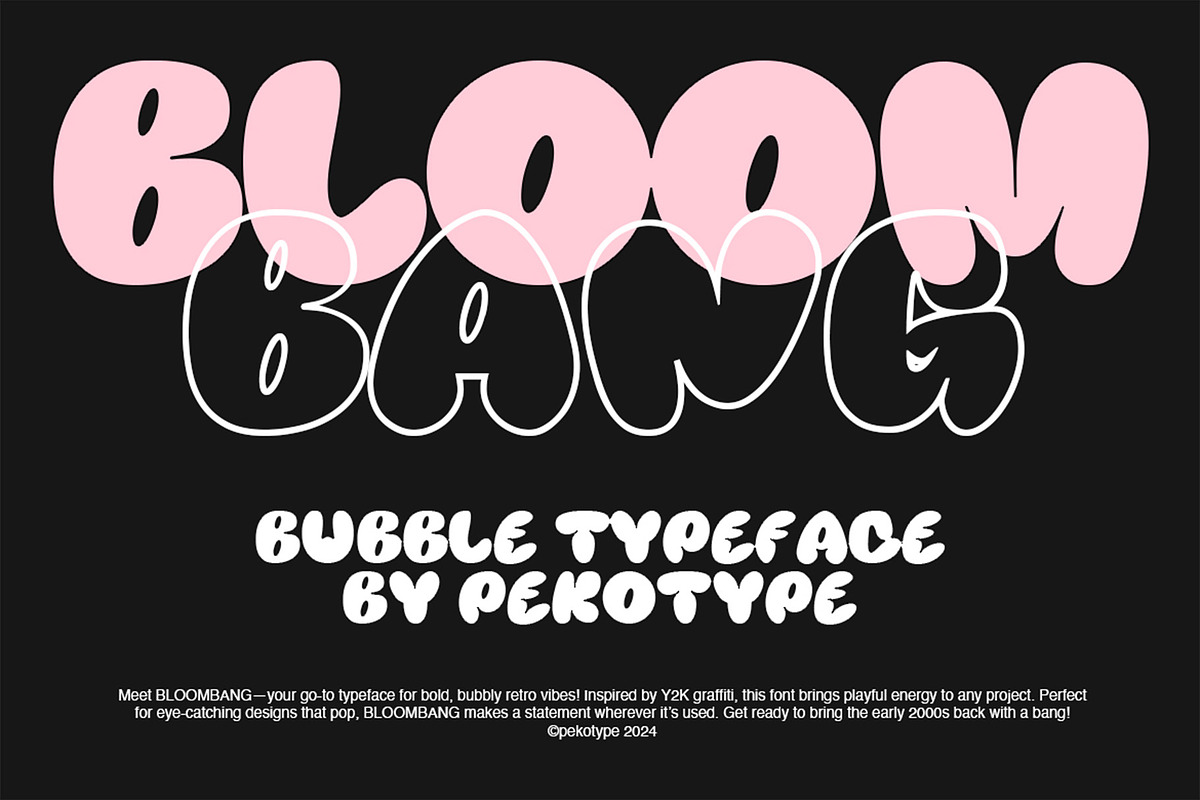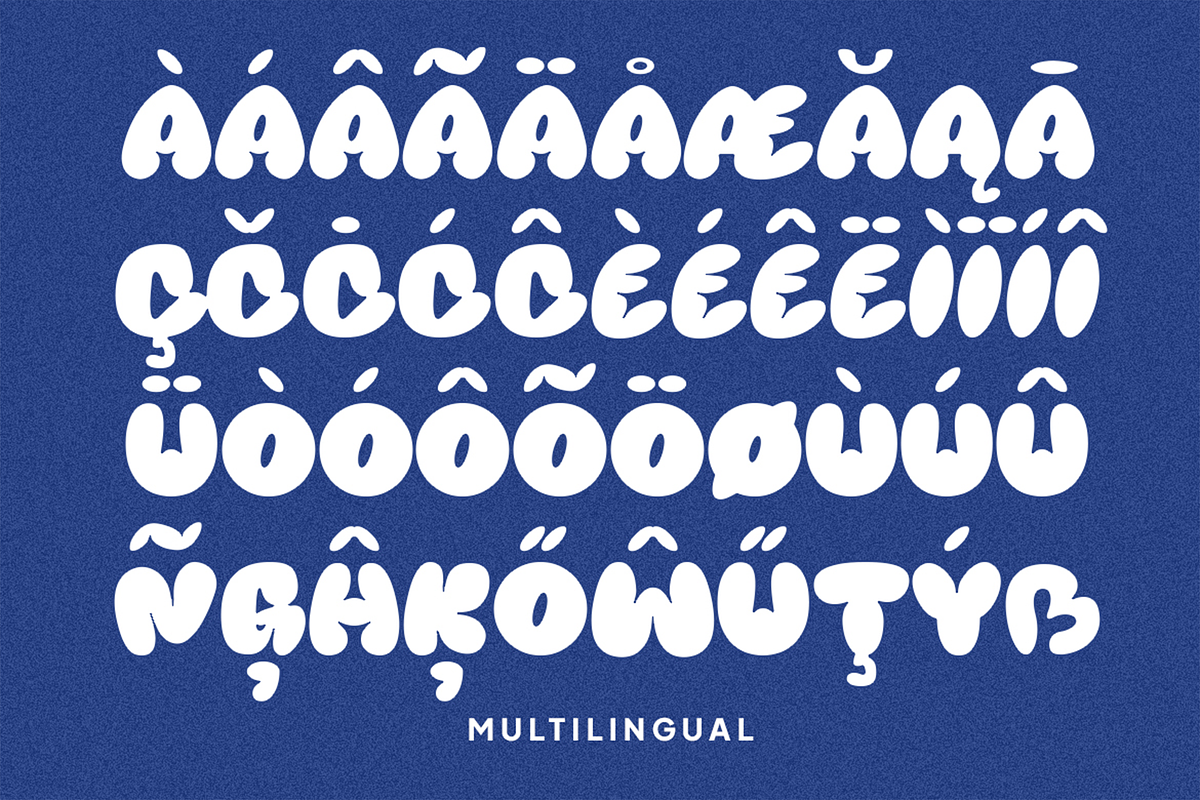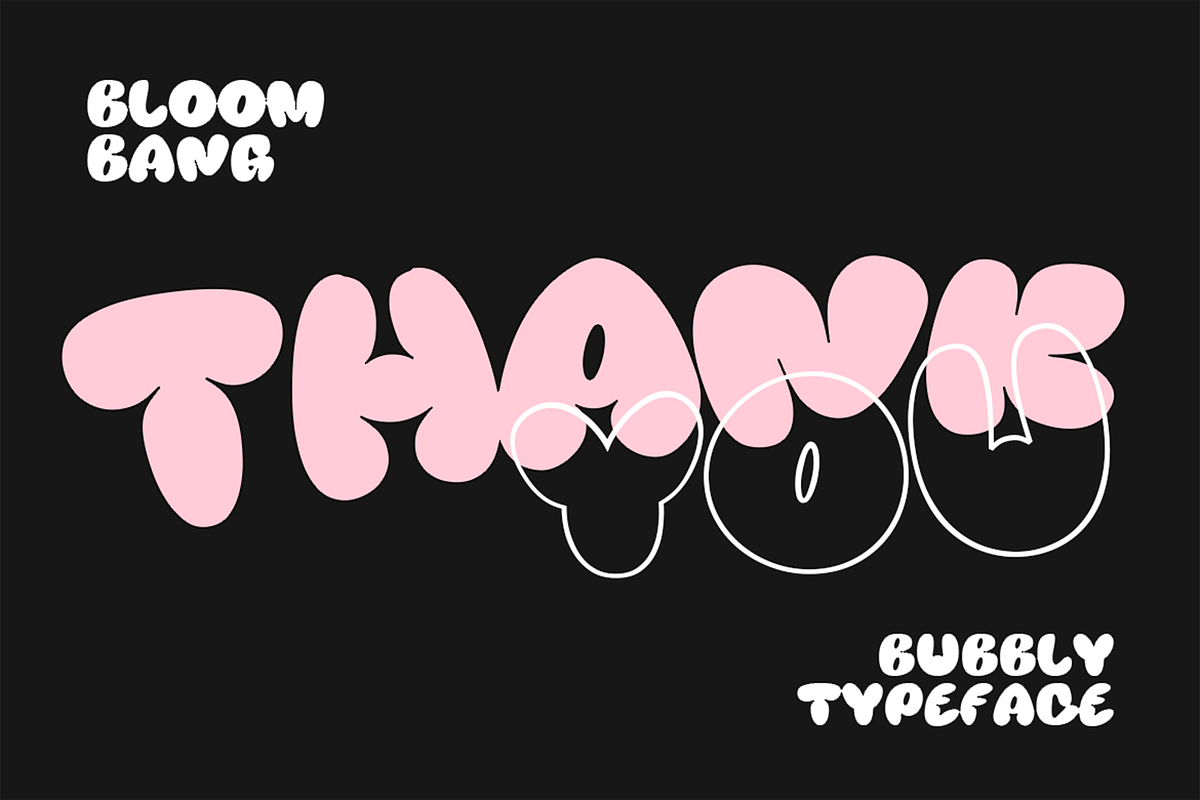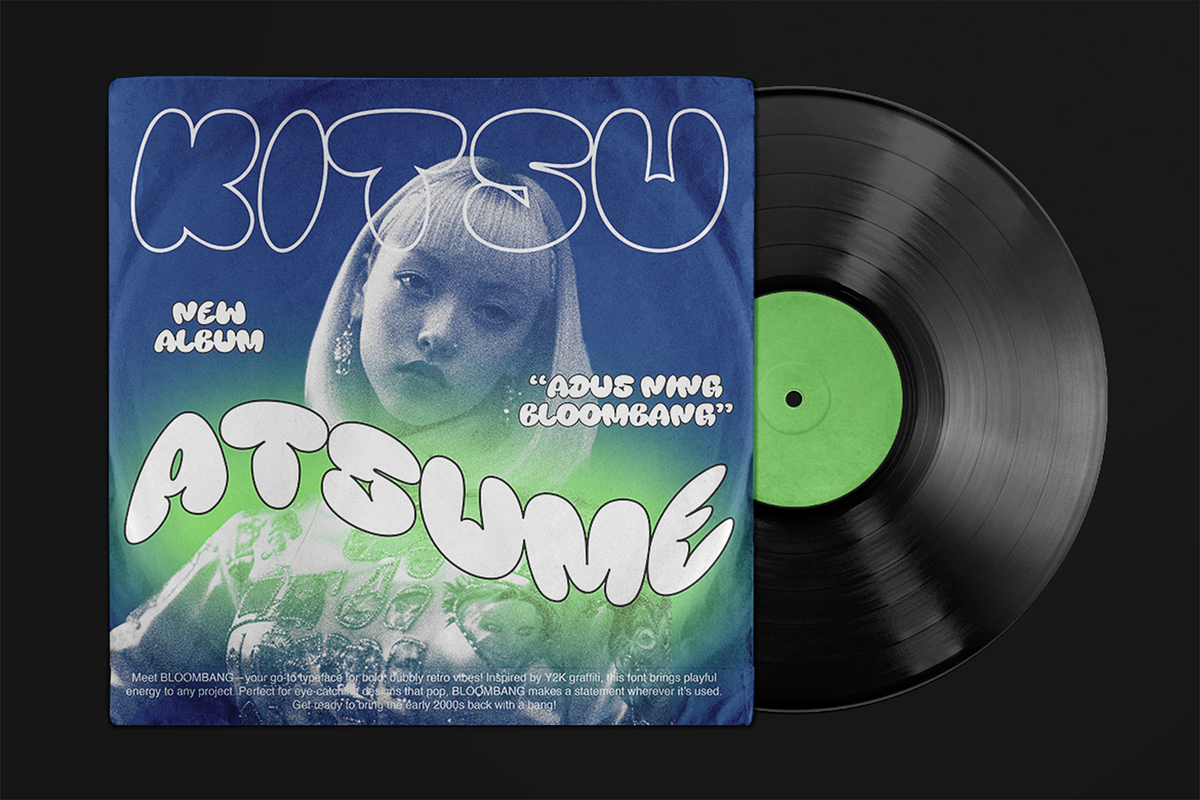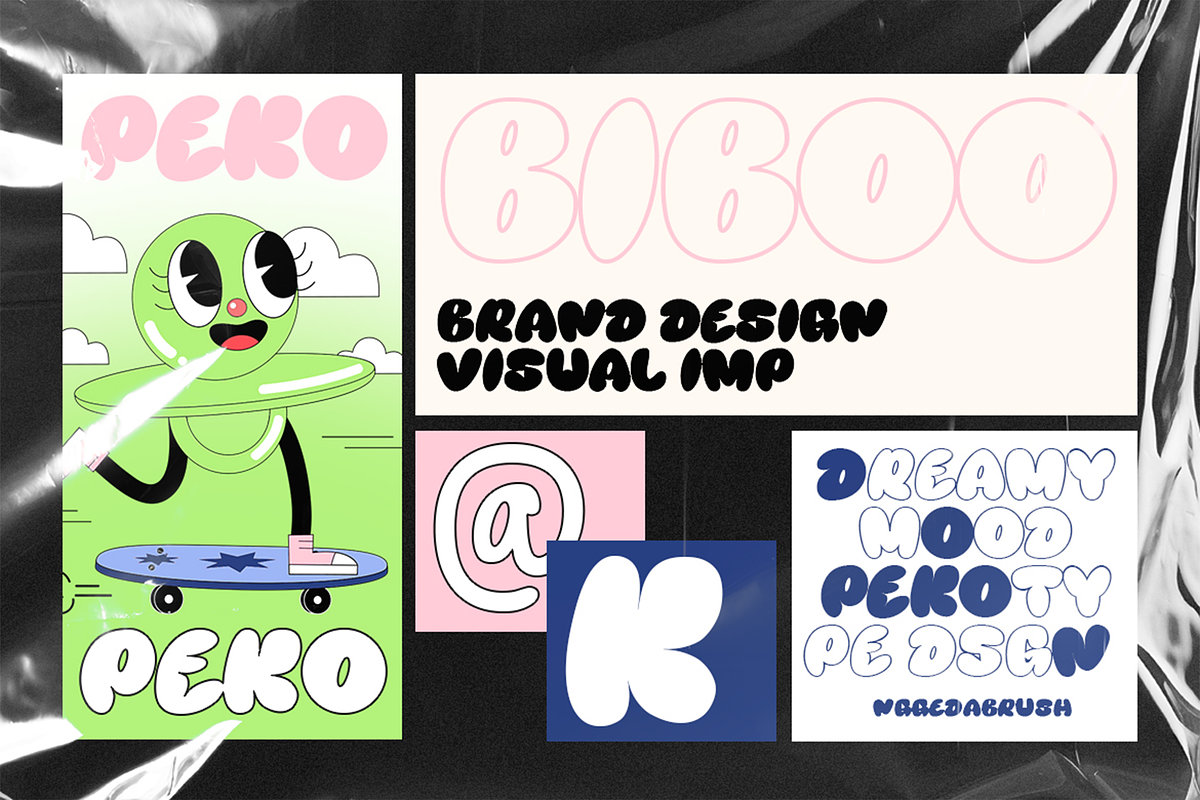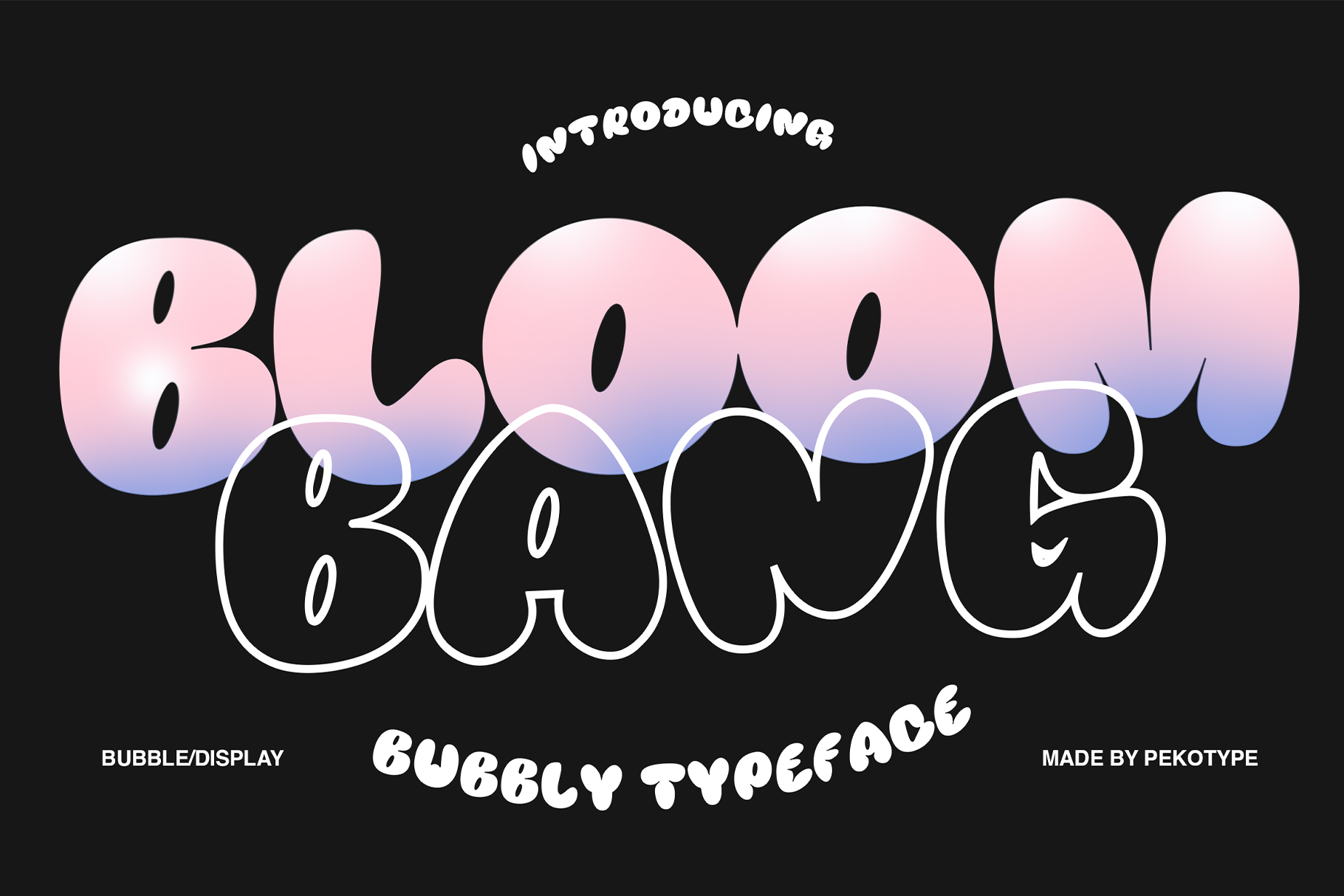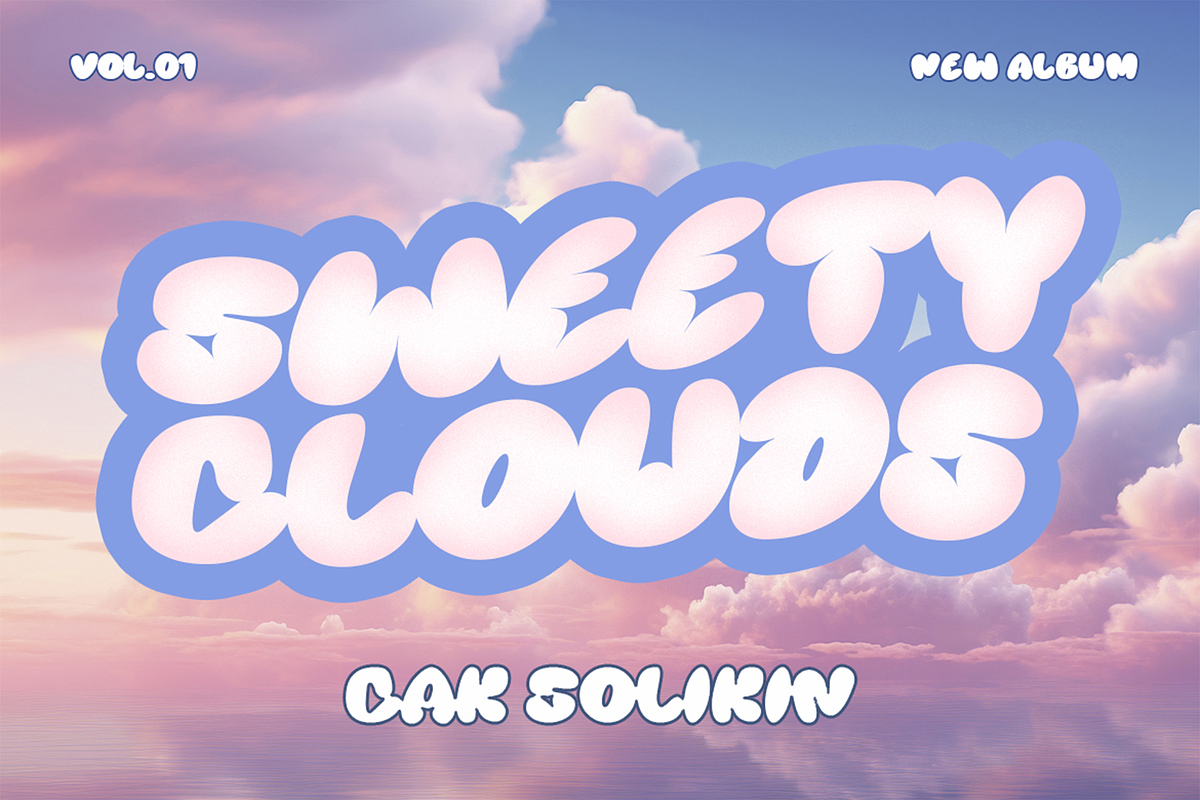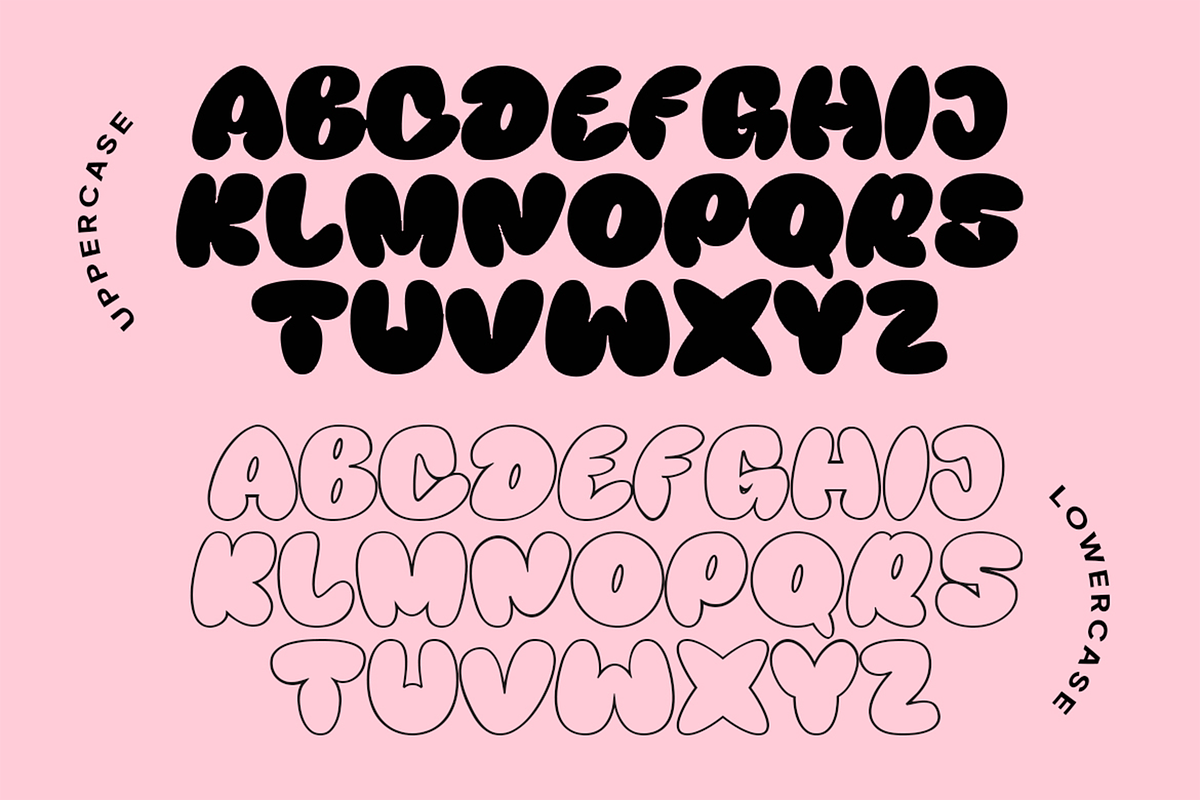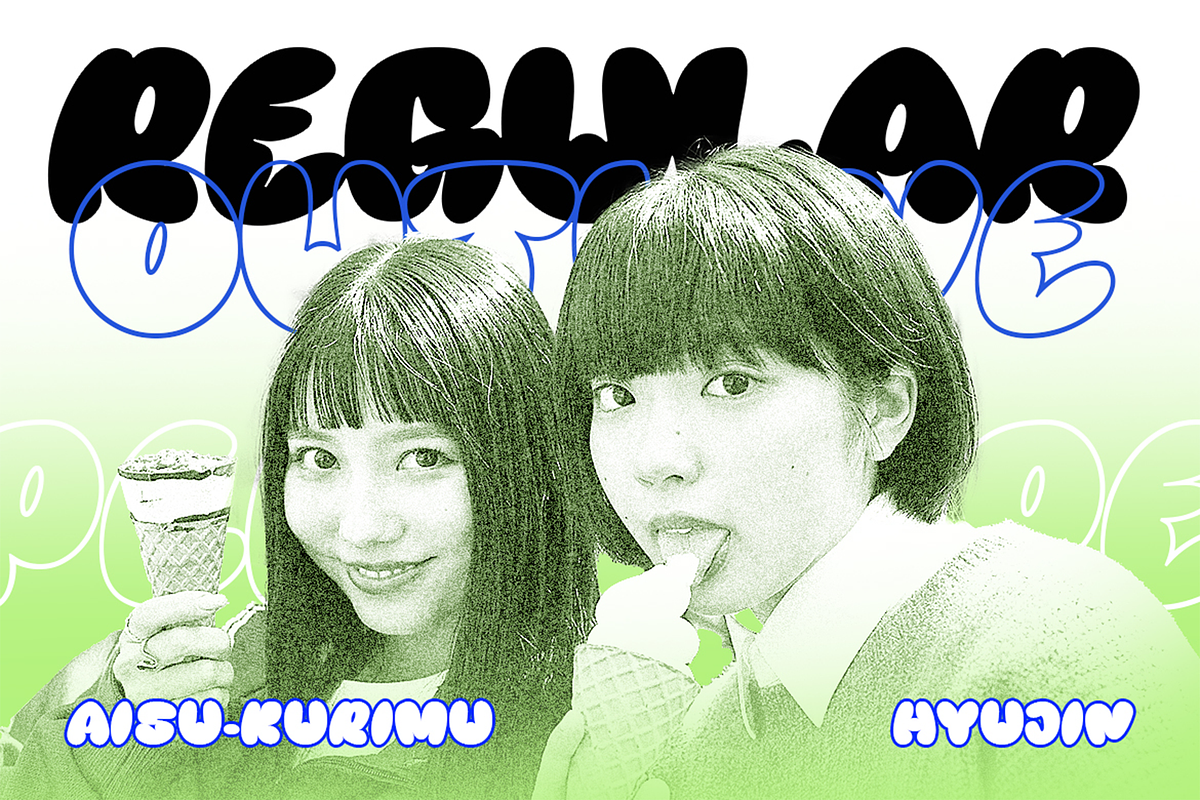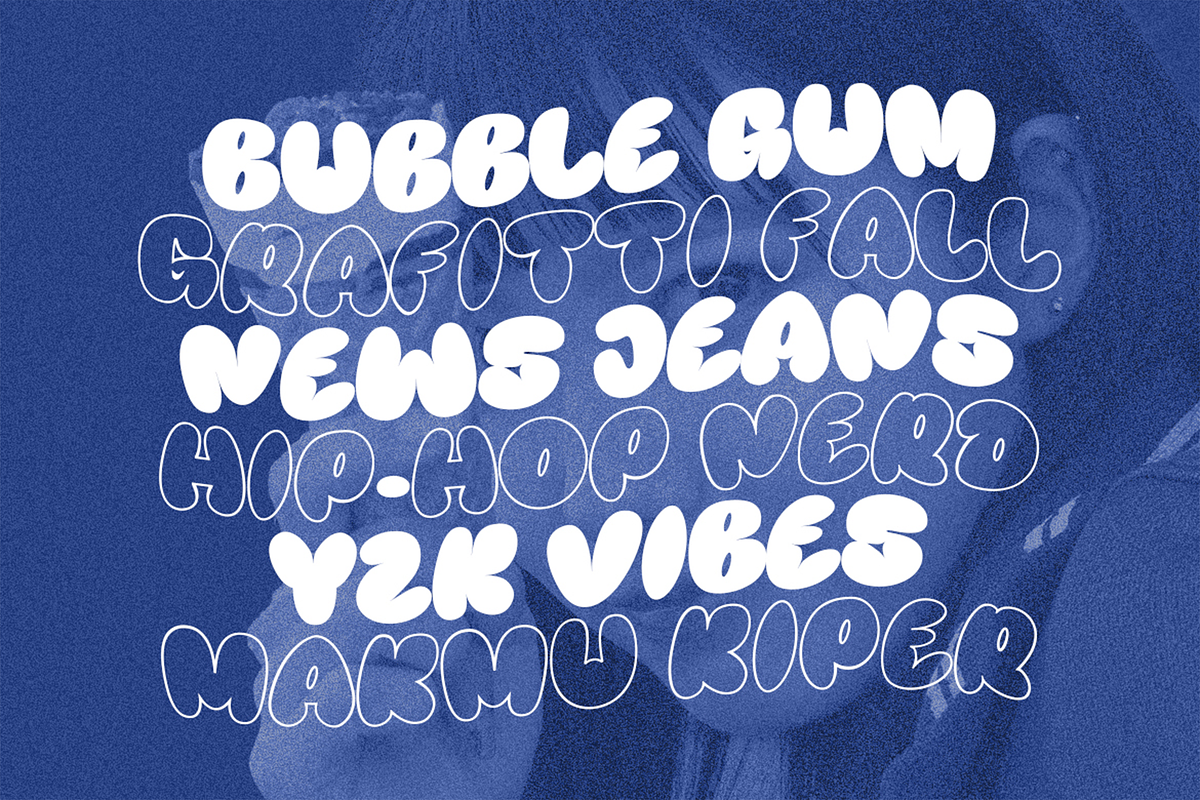
Bloombang - Bubble Display Typeface
Introducing BLOOMBANG—a bold and bubbly display typeface that takes you back to the electrifying Y2K era! Channeling the vibrant energy of graffiti culture with a splash of retro-futurism, BLOOMBANG bursts off the page with oversized curves and playful forms. Perfect for making a loud statement, this typeface brings a nostalgic yet fresh twist to your designs. Whether crafting eye-popping posters, edgy apparel, or dynamic logos, BLOOMBANG is your go-to font for capturing that unmistakable early 2000s vibe with a modern graffiti flair. Let your creativity explode with BLOOMBANG!